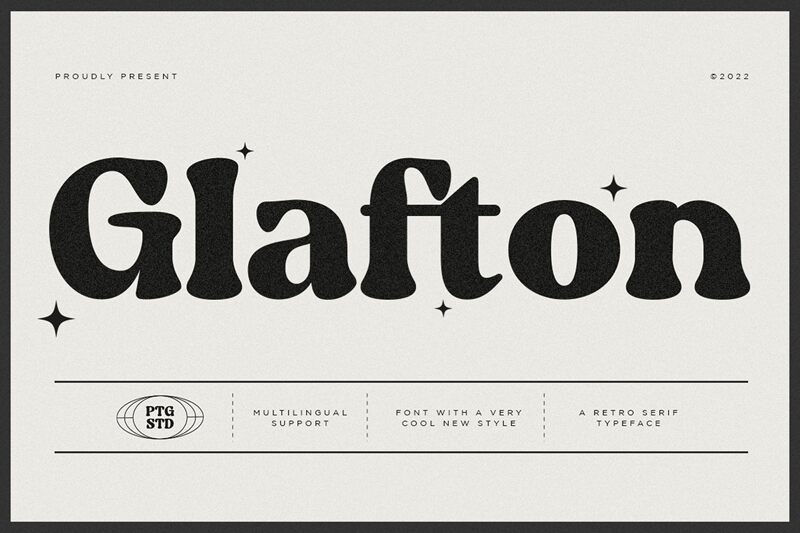
Glafton, a creation of Pentagonistudio, exudes a bold charm reminiscent of bygone eras. With its vintage serif design, this font marries traditional elegance with modern-day boldness. Its pronounced serifs and sturdy form convey a sense of reliability and time-honored craftsmanship.
The Glafton font's robust character makes it an excellent choice for headlines that demand attention or branding that aims to stand out with a touch of nostalgia. It is well-suited for editorial use in magazines, classic book covers, and sophisticated packaging designs where its distinct vintage allure can shine through. This font not only captures the essence of the past but also fits seamlessly into contemporary design narratives that seek a strong typographic presence.